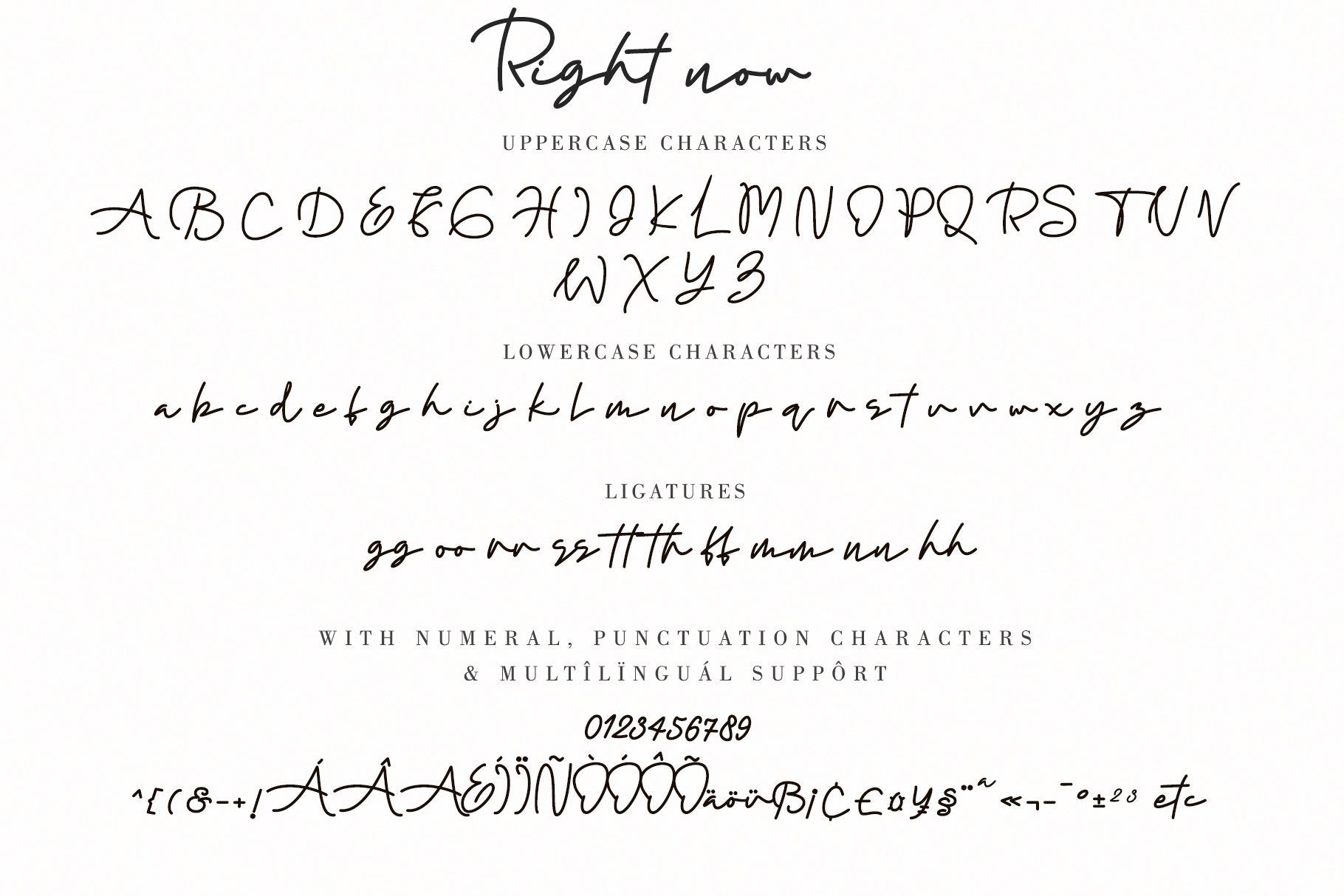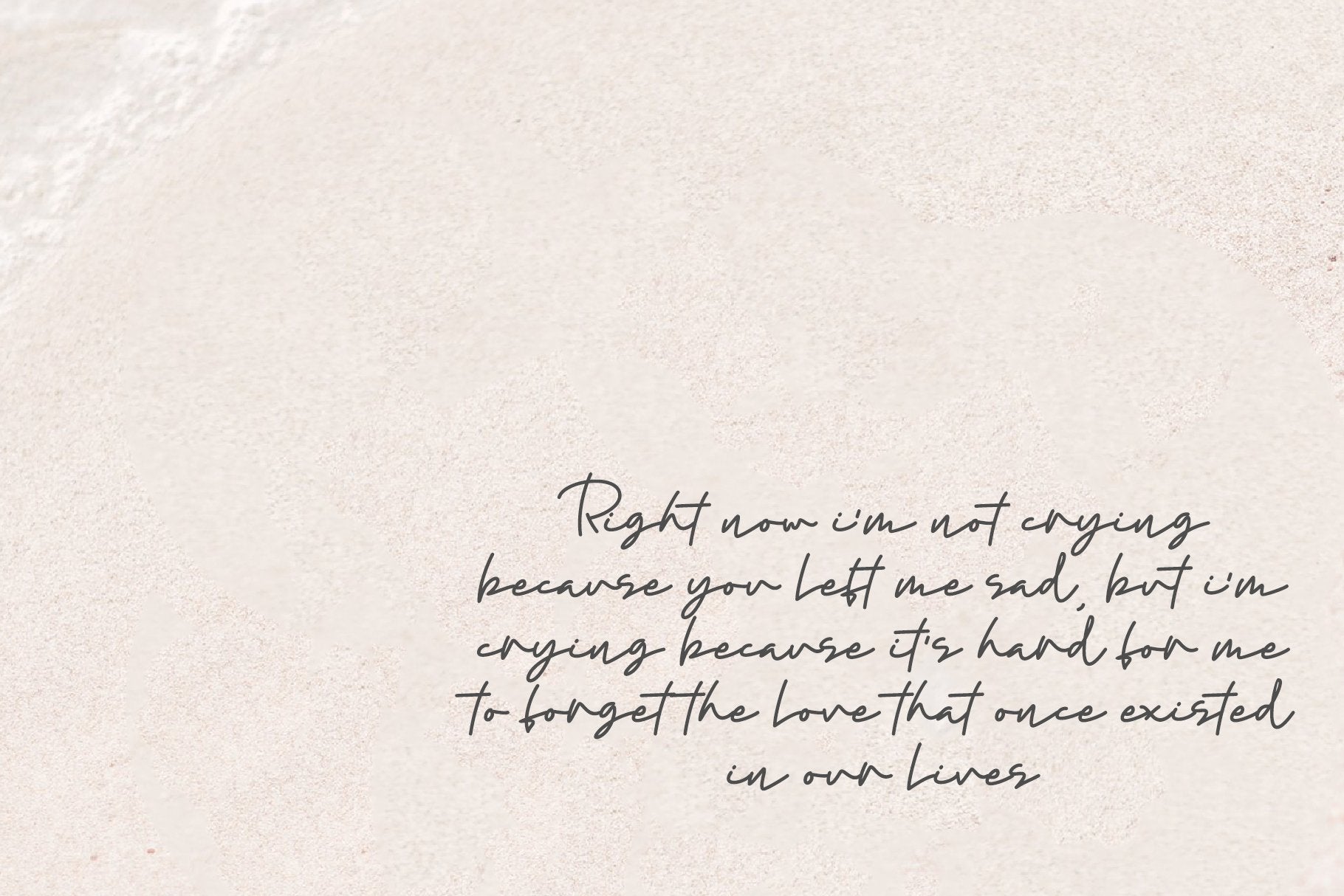
About Right now
Right Now is monoline script font with an elegant style. Get inspired by its contemporary style! This font is available in 10 fonts in 1 typefaces : Thin, Light, Regular, Semi Bold, Bold, Thin Italic, Light Italic, Semi Bold Italic, Bold Italic and most importantly, Right now is perfect for you. Right now.ttf Right now.otf Right now.woff Right now Thin.ttf Right now Thin.otf Right now Thin.woff Right now Thin Italic.ttf Right now Thin Italic.otf Right now Thin Italic.woff Right now Semi Bold.ttf Right now Semi Bold.otf Right now Semi Bold.woff Right now Semi Bold Italic.ttf Right now Semi Bold Italic.otf Right now Semi Bold Italic.woff Right now Light.ttf Right now Light.otf Right now Light.woff Right now Light Italic.ttf Right now Light Italic.otf Right now Light Italic.woff Right now Italic.ttf Right now Italic.otf Right now Italic.woff Right now Bold.ttf Right now Bold.otf Right now Bold.woff Right now Bold Italic.ttf Right now Bold Italic.otf Right now Bold Italic.woff Thanks for checking out my store, and feel free to get in touch if you have any questions!  Our other products :Â BEST SELLER BLACK PINK SIGNATURE ANDORA BRIGITTA HEANFFE EIFFEL IN LOVE ( FONT TRIO) BLACK PINK SUMMER HONG KONG ANGEL MALEFICENT California Street BESTOWENS FAMILY